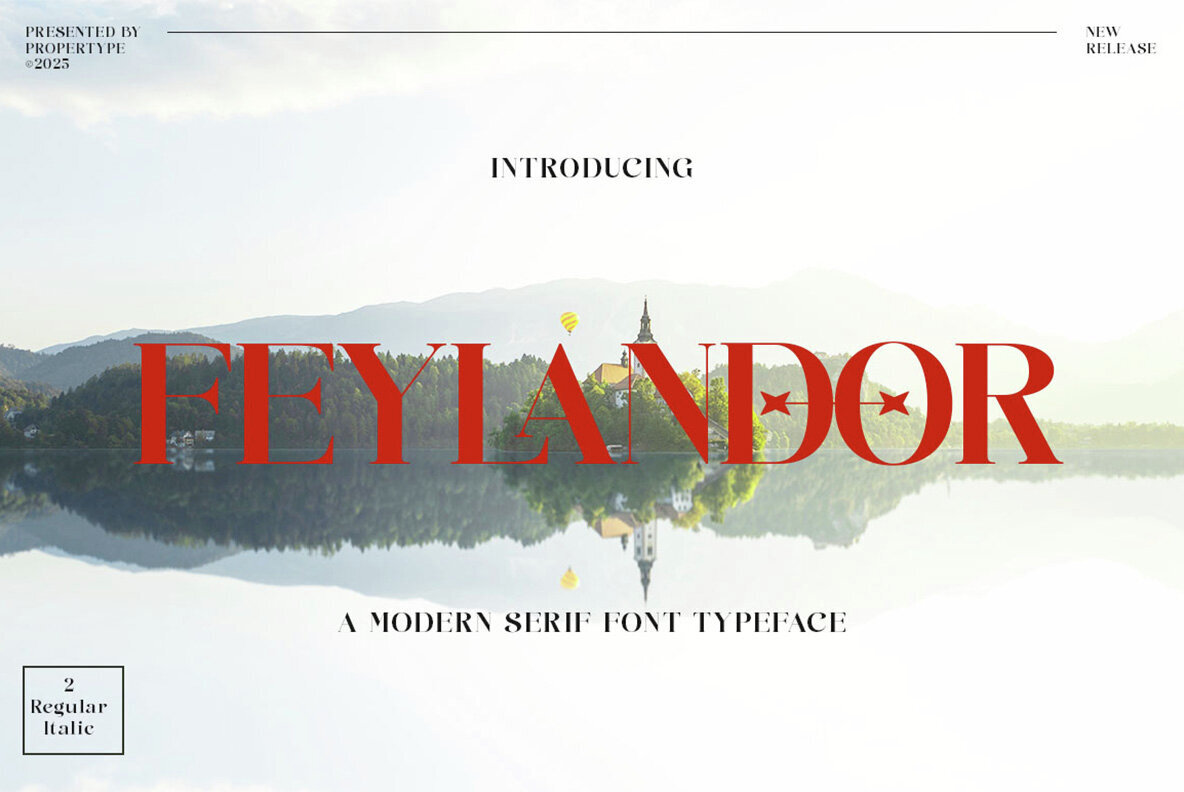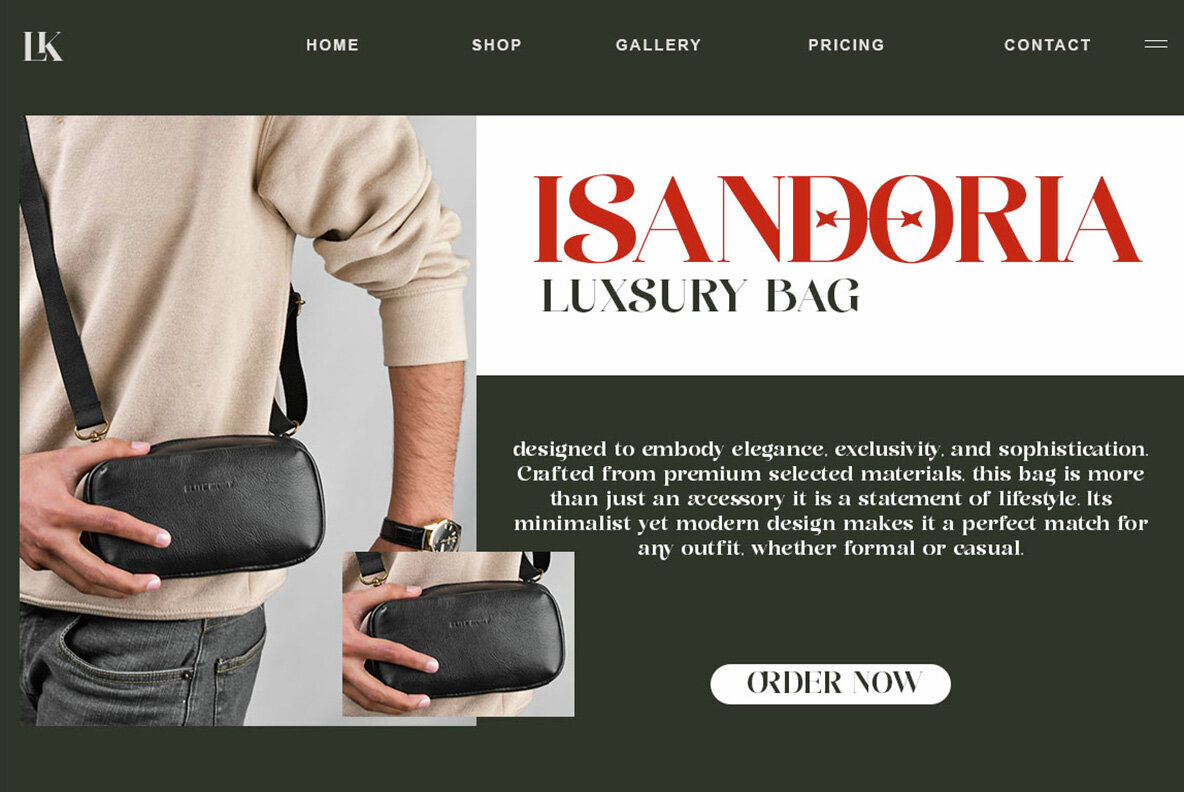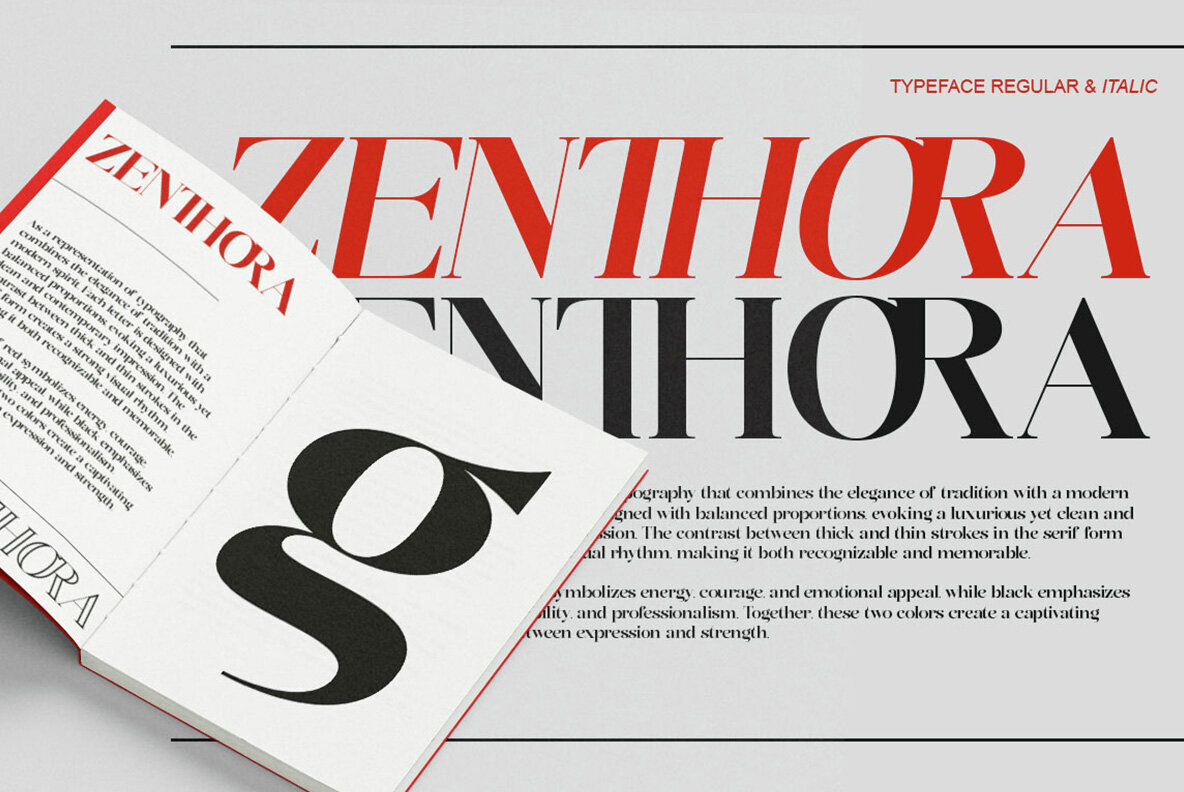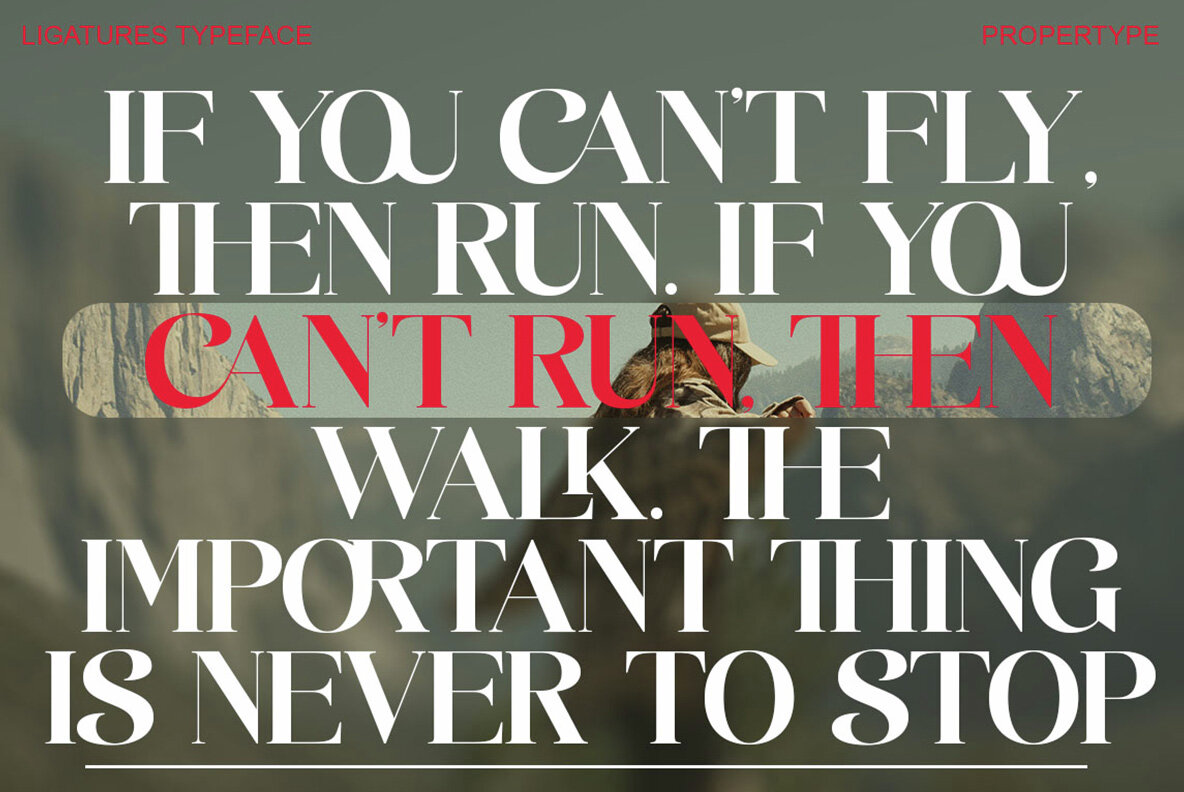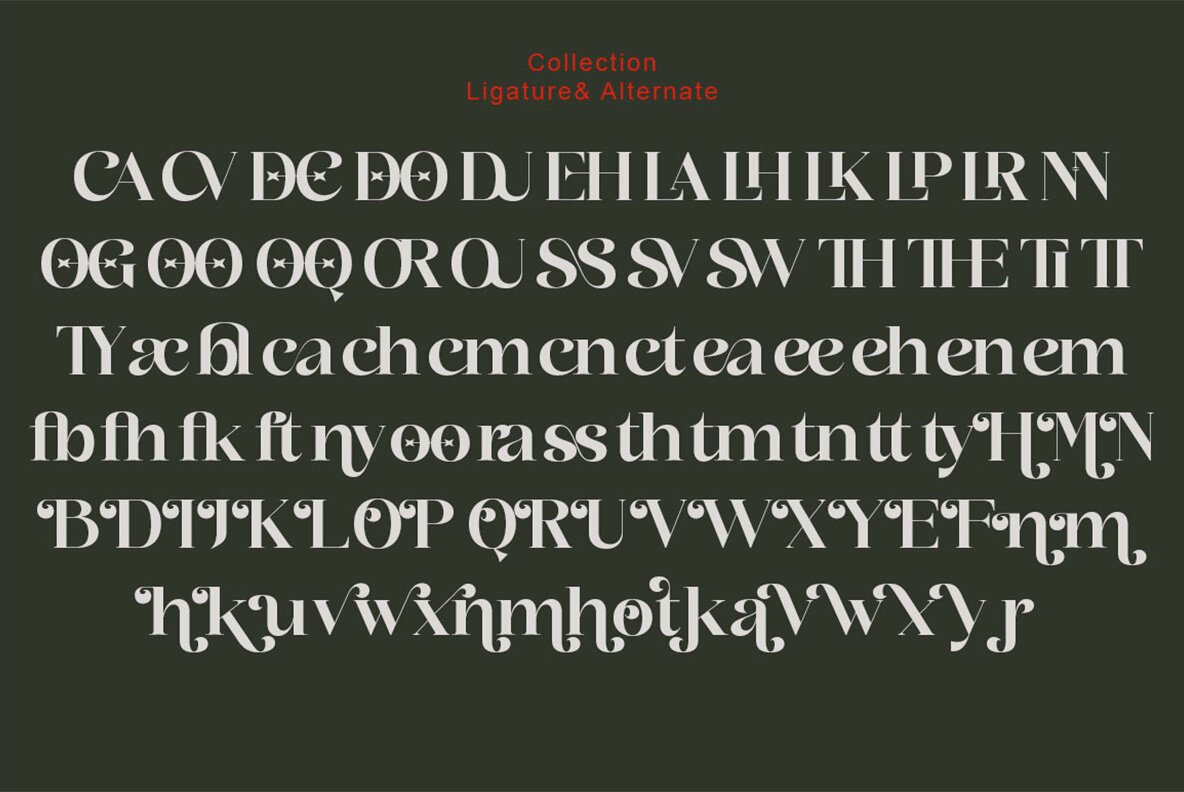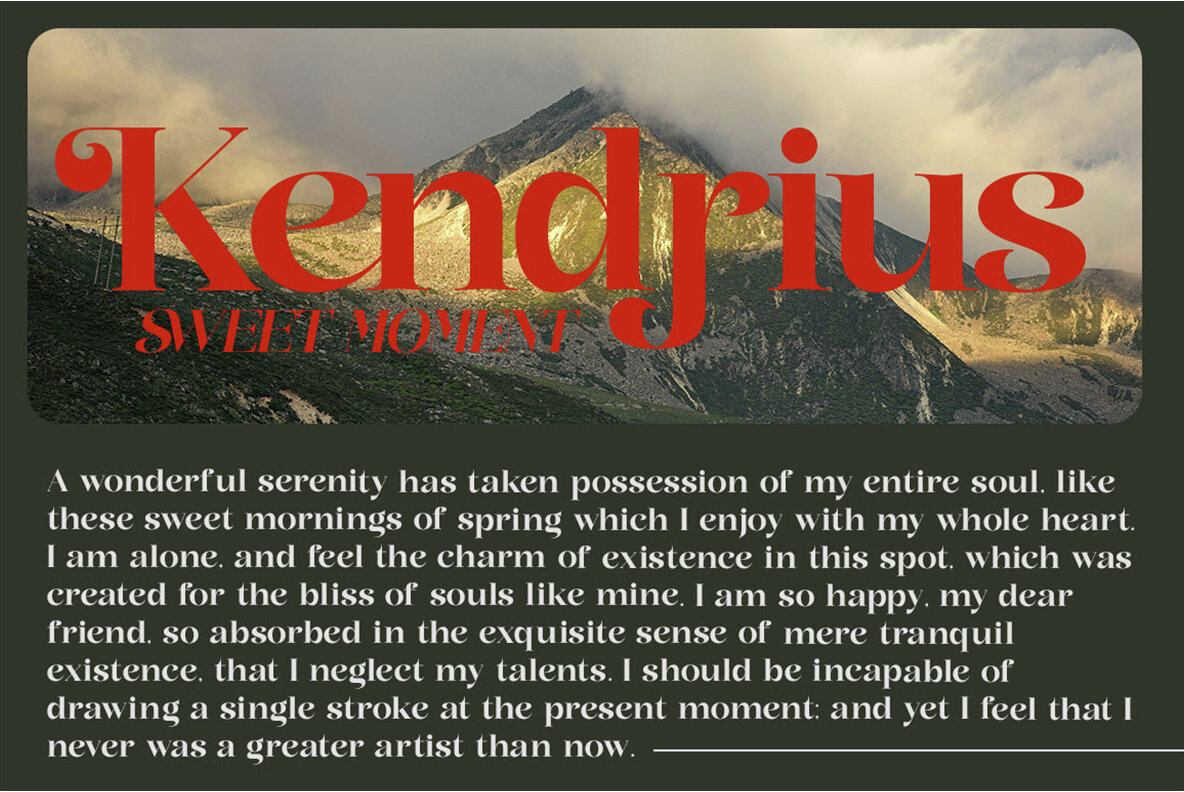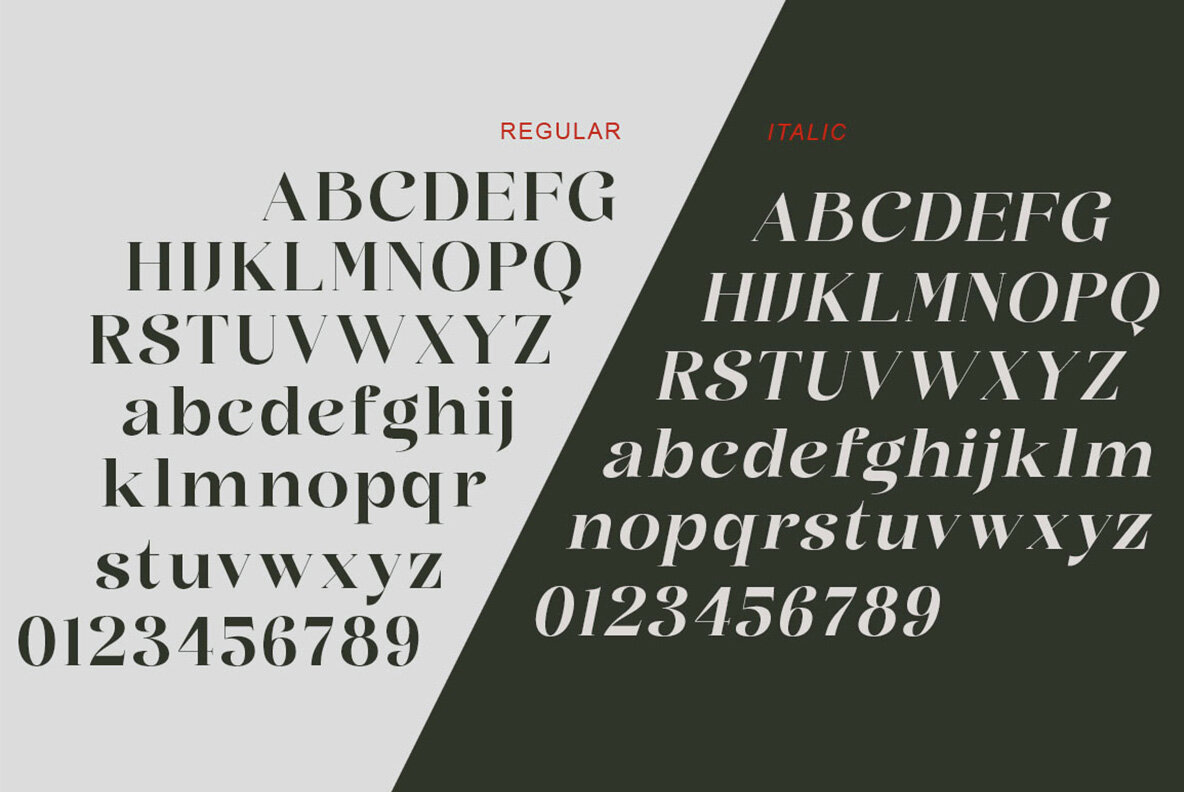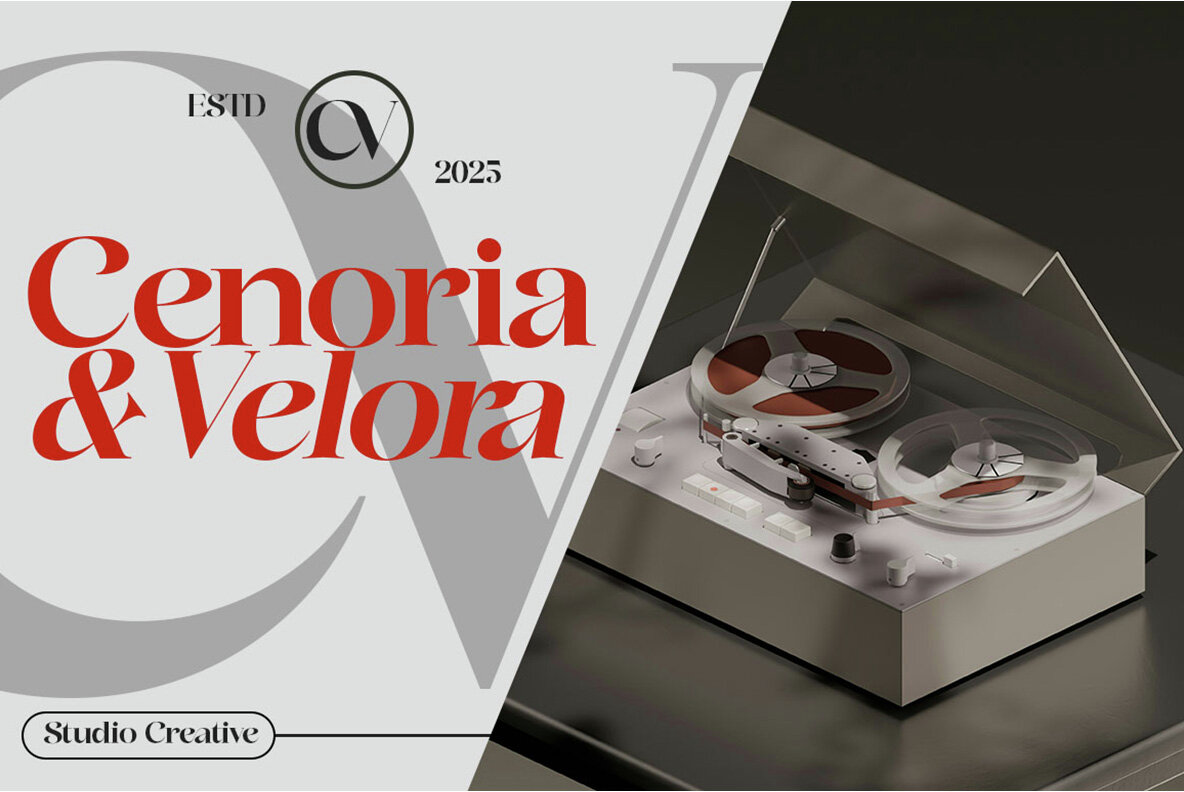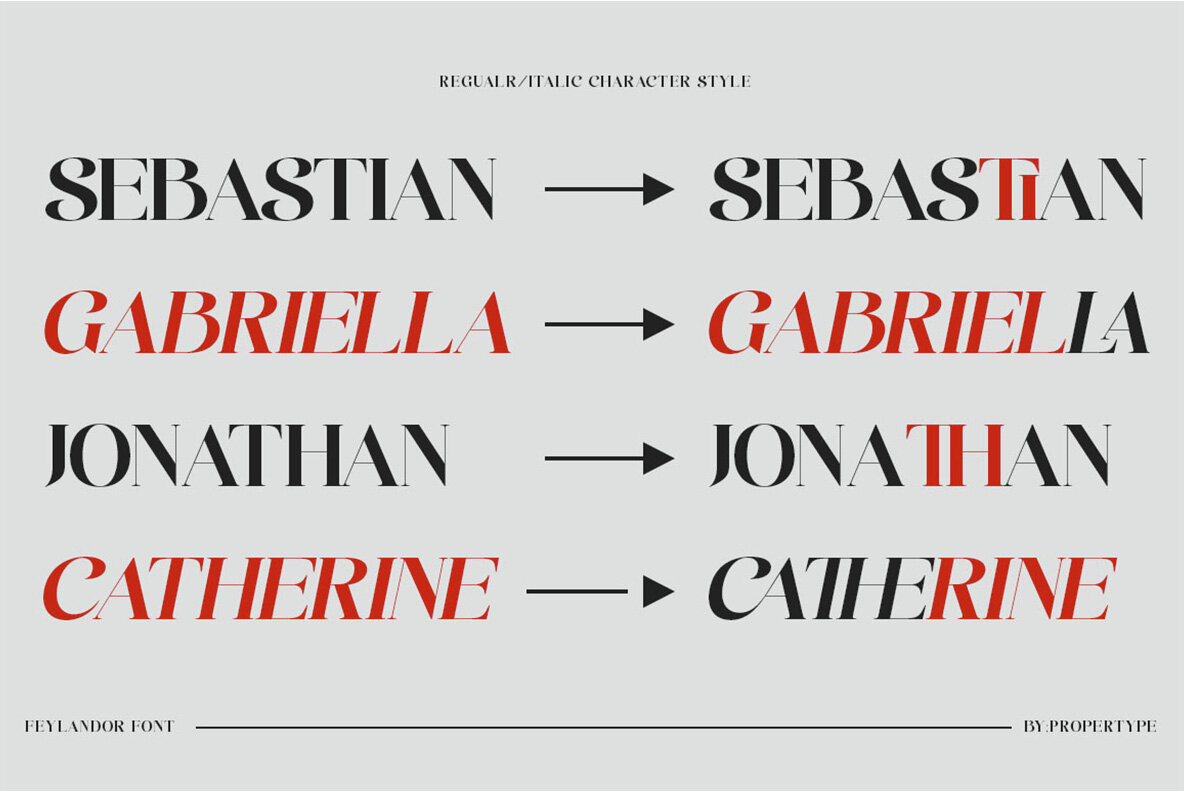
Feylandor Font
Explore the enchanting world of Feylandor, a serif font that masterfully combines fantasy allure with the timeless elegance of classic typography. Characterized by its strong, graceful lines, Feylandor delivers a luxurious and exclusive feel, ideal for projects requiring a sophisticated touch. This versatile font is a perfect match for premium editorials, branding projects, as well as the more imaginative realms of fantasy designs, posters, and book covers.Feylandor: A Blend of Fantasy and Classic Elegance